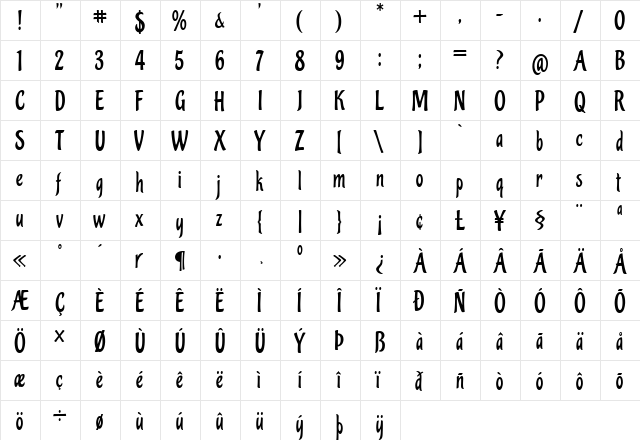
Pinguino Regular
| Foundry | Angel Koziupa and Alejandro Paul |
Design Context for Pinguino Typeface
Pinguino offers clean, dependable letterforms without strong stylistic allegiance, making it a practical choice for designers who need flexibility.